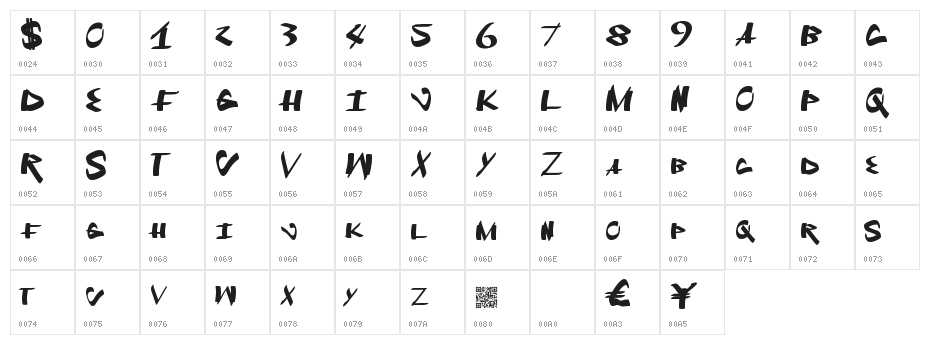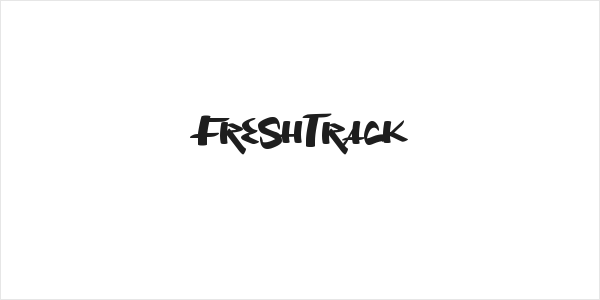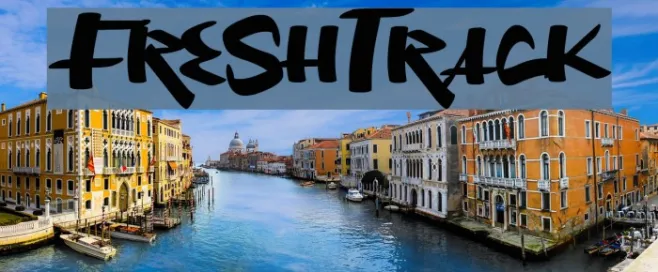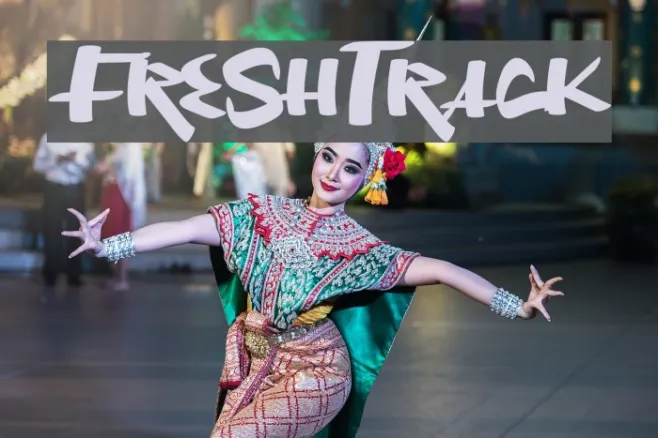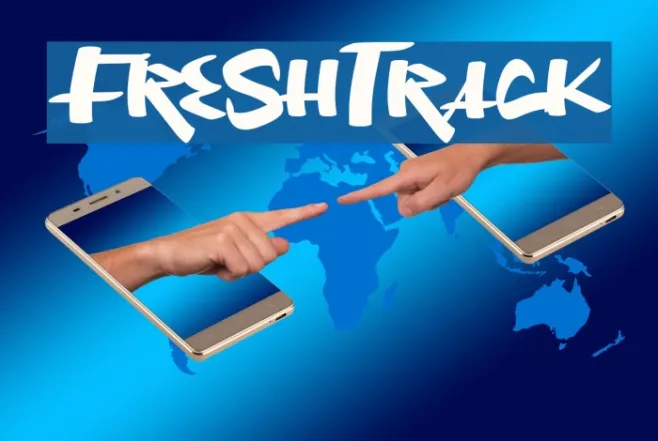
FreshTrack Font
FreshTrack Description
This font exudes a bold and dynamic energy, characterized by its thick, brush-like strokes that give it a hand-painted appearance. The letters are slightly slanted, adding a sense of movement and fluidity. The uppercase and lowercase letters maintain a consistent style, with sharp angles and dramatic curves that create a sense of urgency and excitement. The numbers and special characters follow the same aesthetic, ensuring a cohesive look across all elements. This font is perfect for projects that require a strong, impactful visual presence.
| Proposed Projects | Ideal for posters, branding, streetwear designs, and music album covers. |